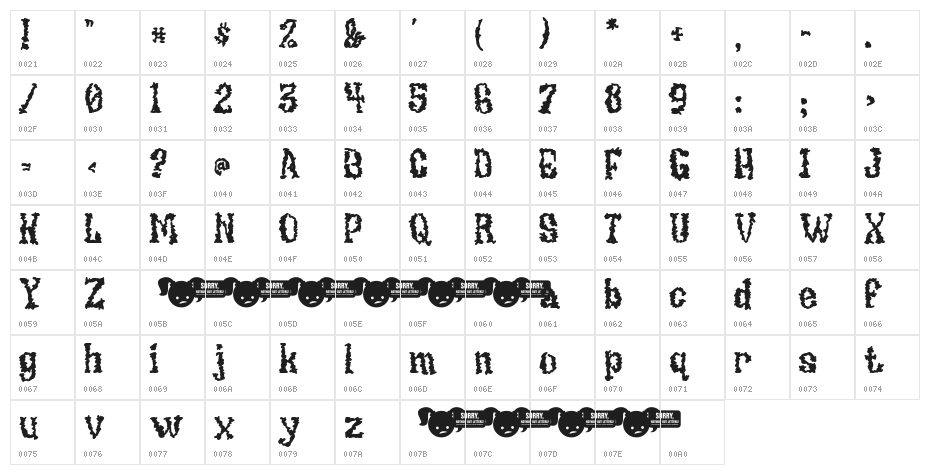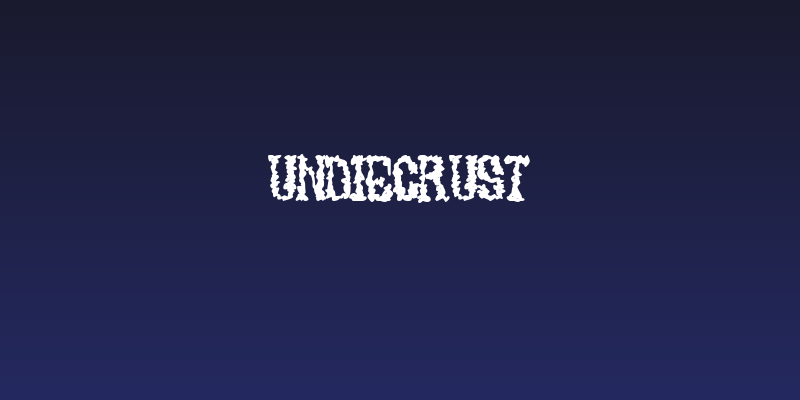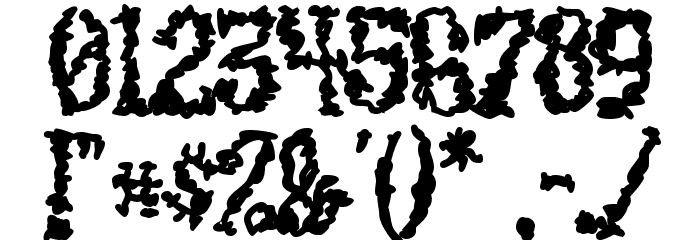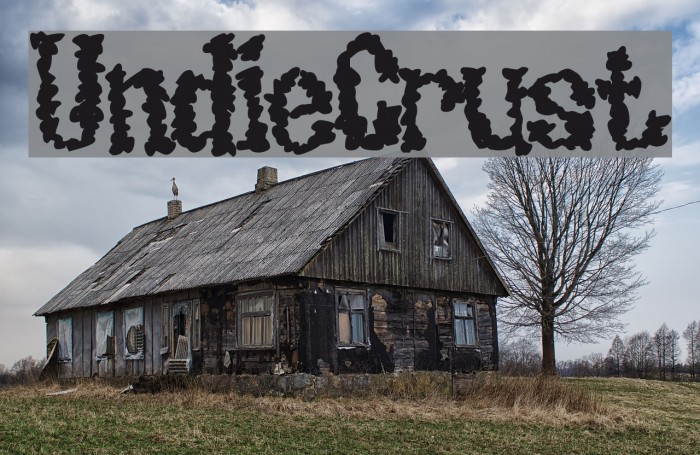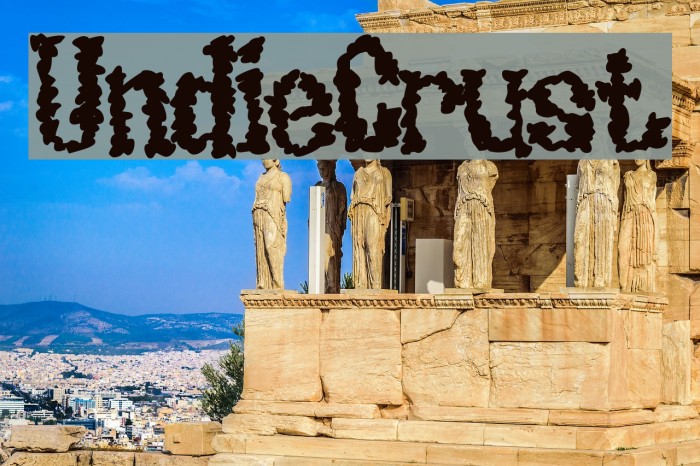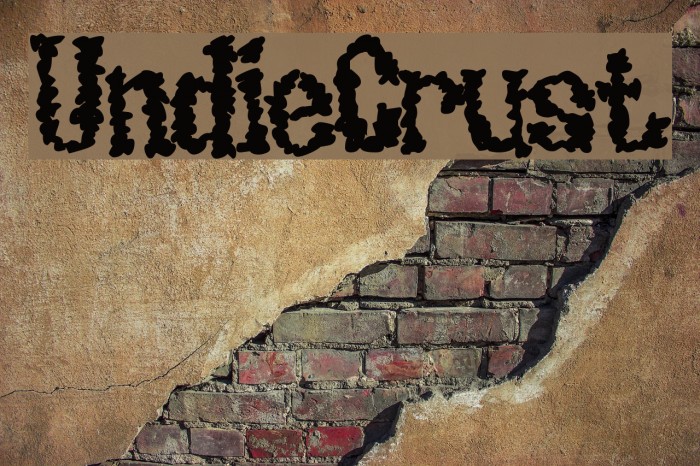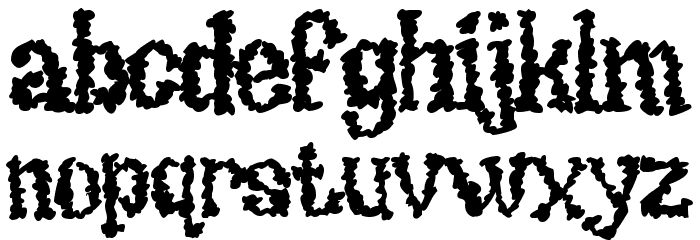
UndieCrust Font
This font features a highly decorative and textured style, resembling a rough, crusty surface. The characters are bold and irregular, giving a unique, organic feel. The uppercase and lowercase letters maintain a consistent design, with jagged edges and uneven strokes that create a sense of movement and energy. Numbers and special characters follow the same aesthetic, ensuring a cohesive look across all glyphs. This font's distinct appearance makes it stand out, ideal for projects requiring a bold and unconventional typeface.
| Use Case | Logos, Posters, Artistic Projects |
| Proposed Projects | Ideal for album covers, posters, and branding that require a bold, artistic touch. |